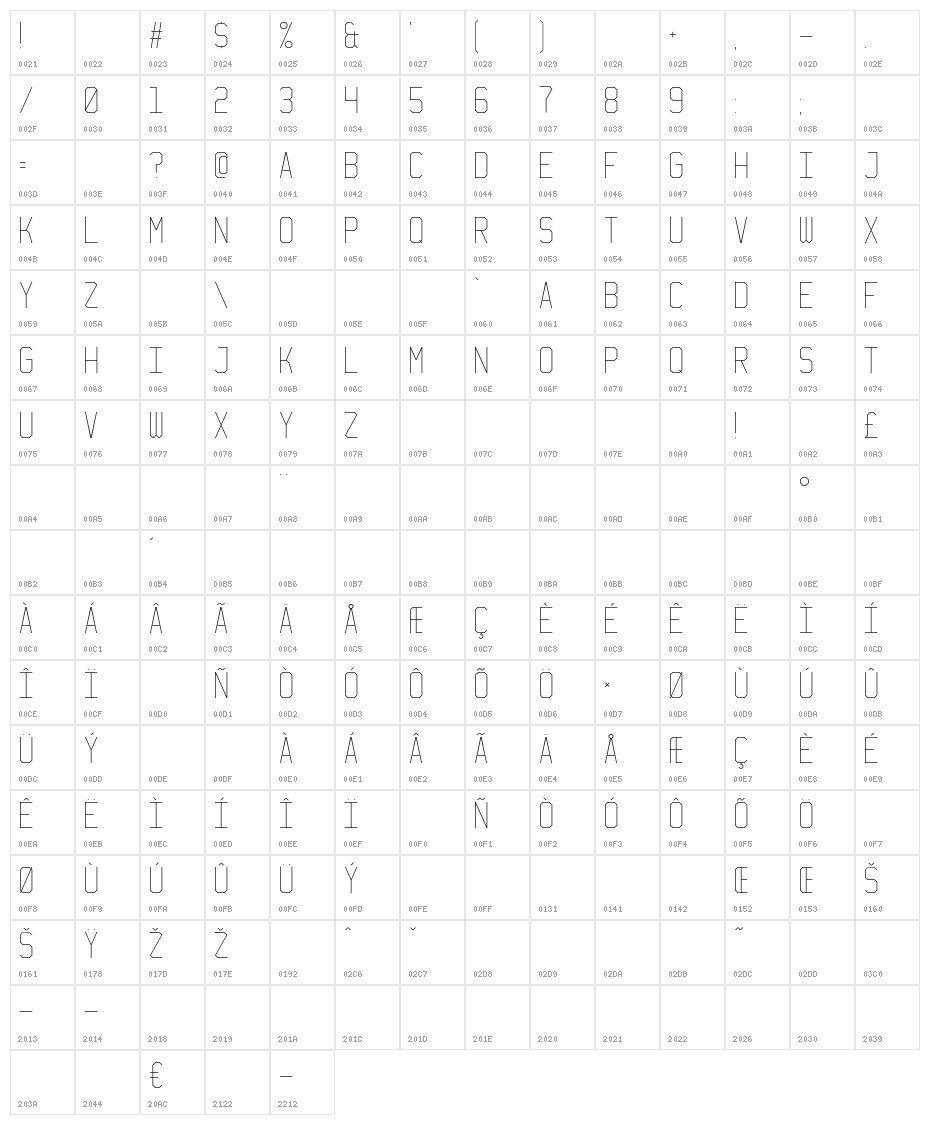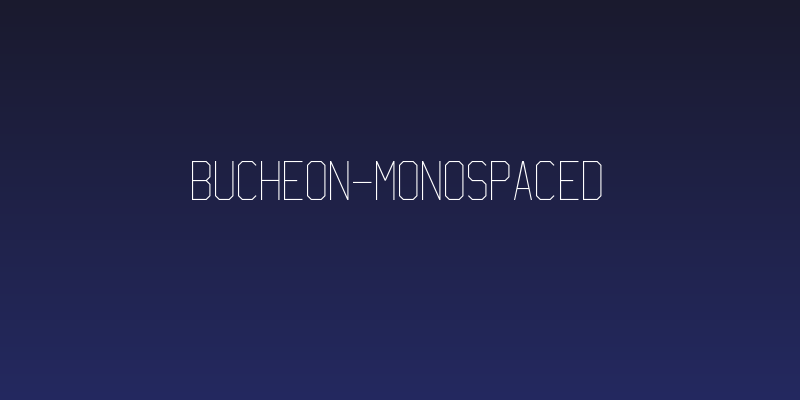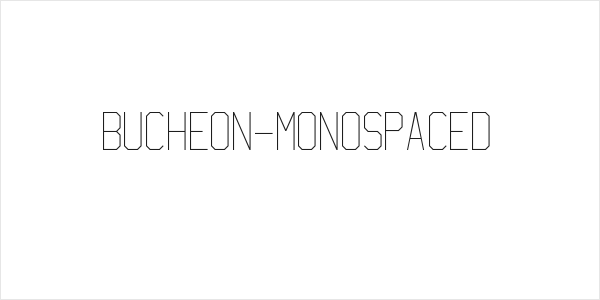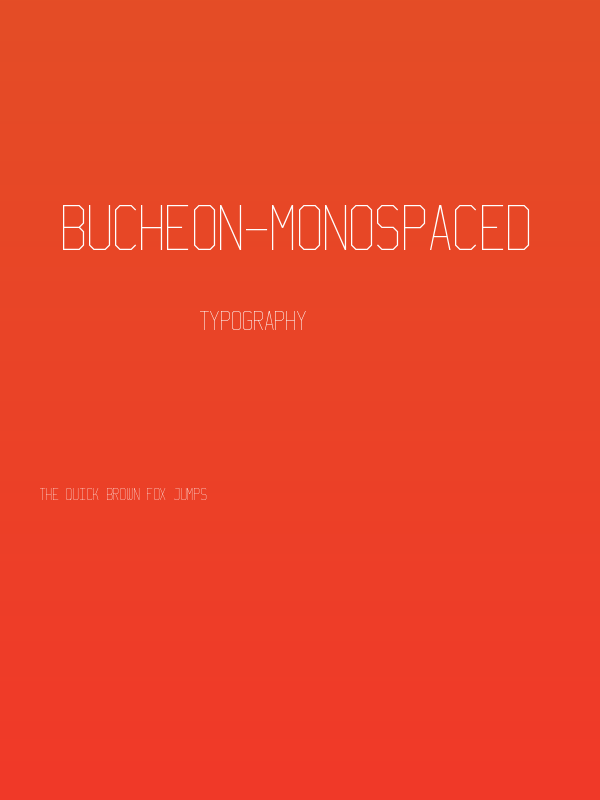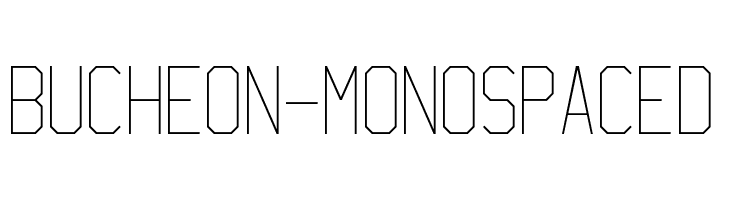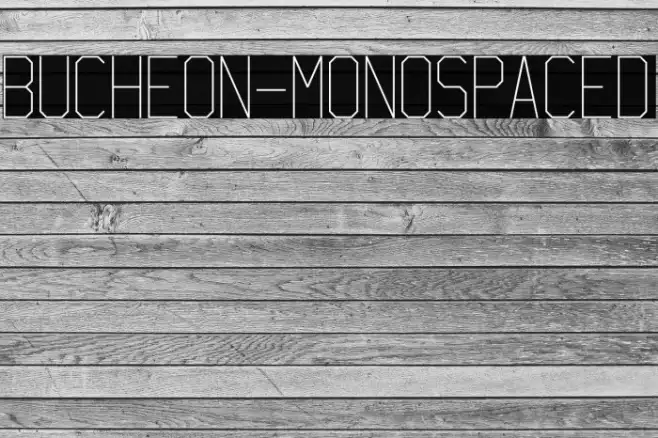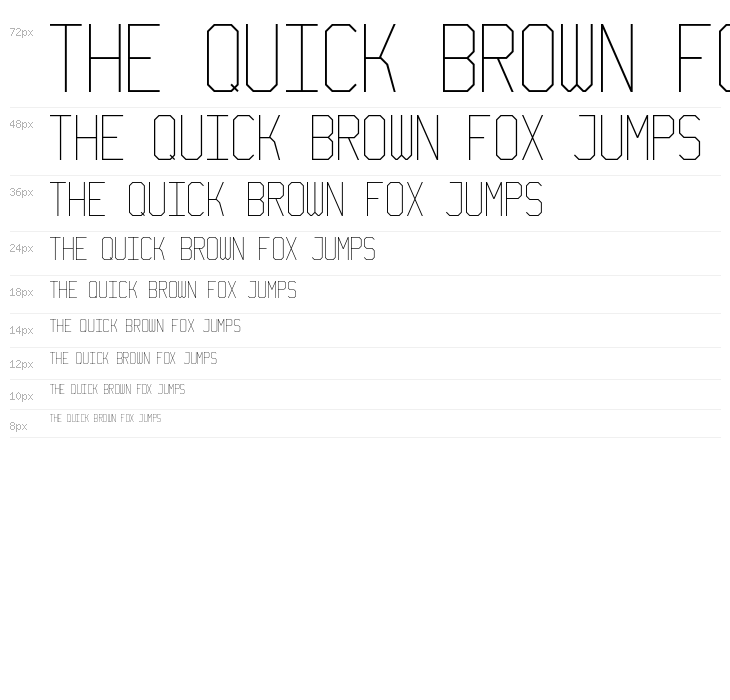
Bucheon-Monospaced Font
Bucheon-Monospaced Description
This font features a monospaced design with a geometric and technical aesthetic. Each character is constructed with straight lines and sharp angles, giving it a modern and digital appearance. The uniform width of the characters ensures consistent spacing, making it ideal for coding and technical documents. The uppercase and lowercase letters maintain a consistent height, while the numerals and special characters are designed to match the overall style. The clean and precise lines contribute to its legibility, even at smaller sizes.
| Use Case | Coding, Technical documents, Digital displays |
| Proposed Projects | Ideal for coding, technical documents, digital displays, and modern branding. |